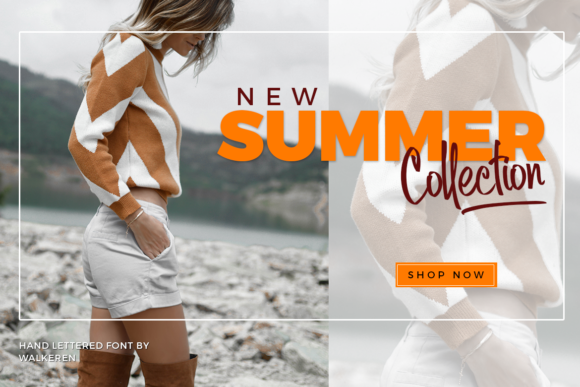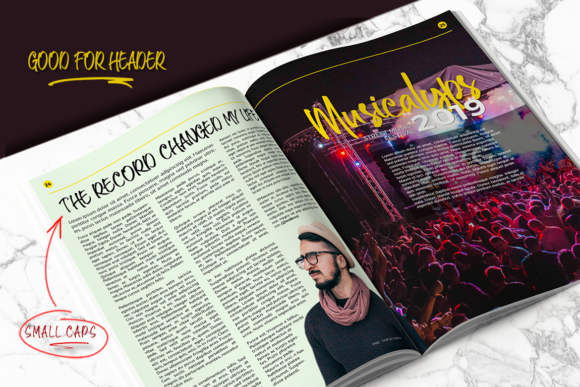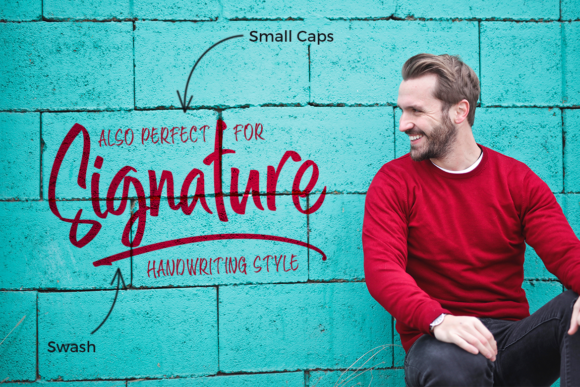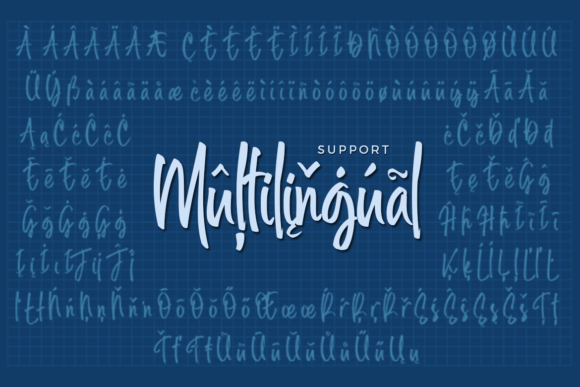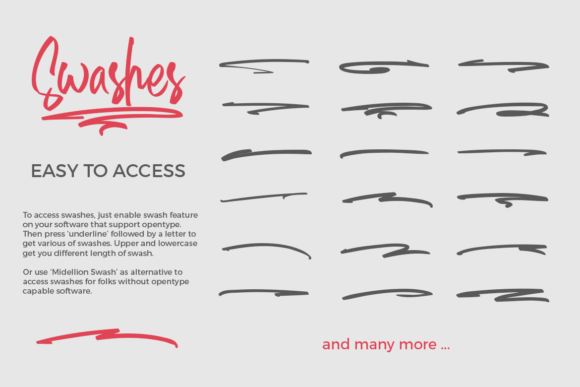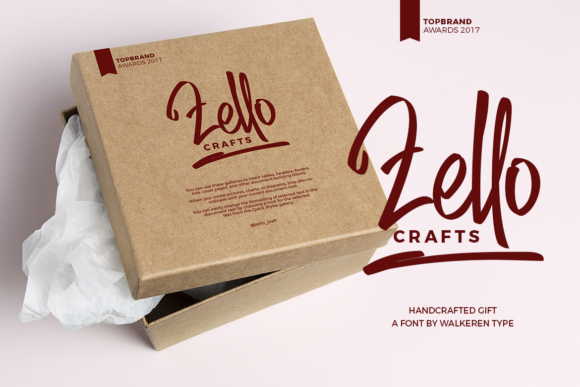
Introduction to Midellion Font
As a designer, there’s nothing quite like the thrill of bringing a creative project to life. You spend hours pouring over ideas, perfecting every detail, and crafting a unique visual identity that sets your work apart. But sometimes, the key to making that final push is having the right tools in your arsenal. That’s where the Midellion Font comes in – a game-changing, high-quality design resource that’s about to become your new best friend.
With its modern style and built-in OpenType features, the Midellion Font is the perfect solution for designers looking to add a touch of elegance and sophistication to their work. Whether you’re working on a blog header, a wedding invitation, or a branding project, this versatile font is sure to deliver.
But what really sets the Midellion Font apart is its versatility – it’s perfect for a wide range of creative projects, from fashion and apparel to photography and watermarking. And with its smooth texture, you can rest assured that it will look stunning on any printing technique, from embroidery to gold foil.
Key Features of Midellion Font
- Unique, modern design ideal for a wide range of design applications
Honest Review: Midellion Font
I recently had the chance to work with the Midellion Font for a creative project and I must say, it’s been a game-changer. The font is perfect for adding a touch of elegance and sophistication to any design. ✨
One of the things that stood out to me was the high quality of the font. The letters are crisp and clear, making it perfect for both digital and print projects. I also appreciate that it’s a free download, making it an accessible design resource for designers of all levels.
The font’s transparent background also makes it easy to use as a layering element, adding depth and visual interest to any design. Plus, it’s highly versatile and can be used for a wide range of creative projects, from branding to editorial design.
Here are some of the things that work well with the Midellion Font:
- High quality and crisp letters
- Highly versatile and suitable for various creative projects
My only limitation with the font is that it can be a bit challenging to use for very small text sizes, as the letters can become slightly distorted. ⚠️
Overall, I’m thoroughly impressed with the Midellion Font and would highly recommend it to any designer looking for a high-quality, free design resource. It’s a great addition to any design toolbox and has already become a staple in my own creative projects.
Montserrat is a great alternative to Midellion Font for designers who want a more contemporary and versatile font. While Midellion Font has a unique, handwritten feel, Montserrat offers a sleek and modern aesthetic that works well for a wide range of design applications.